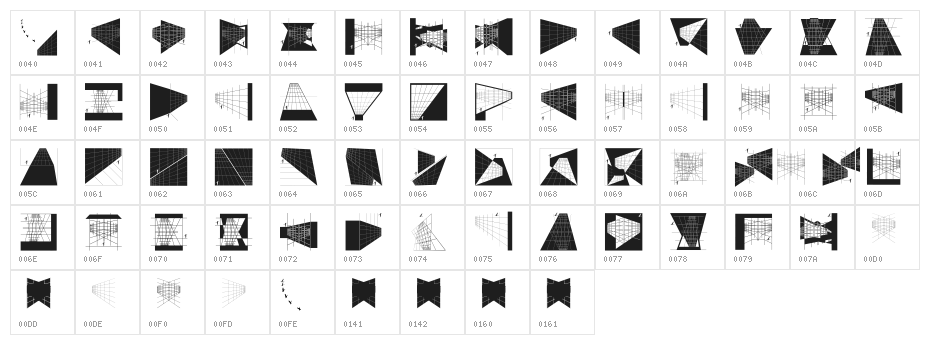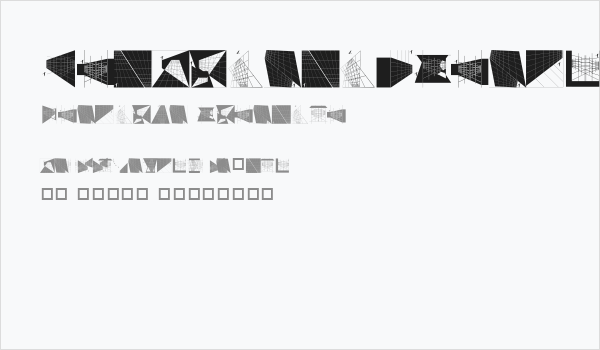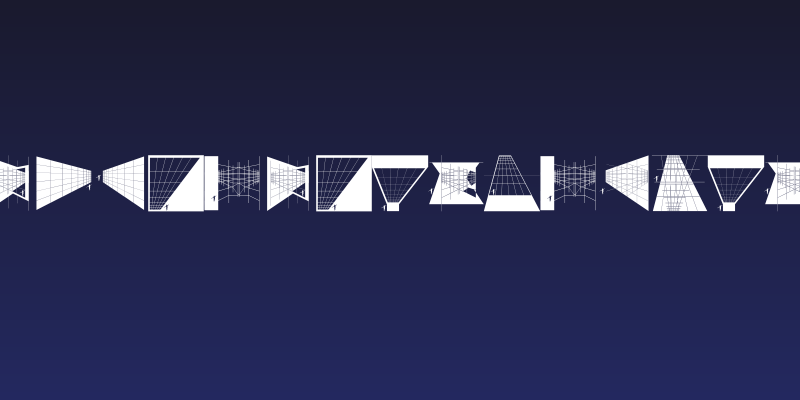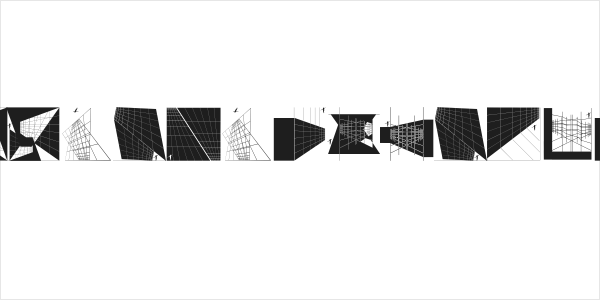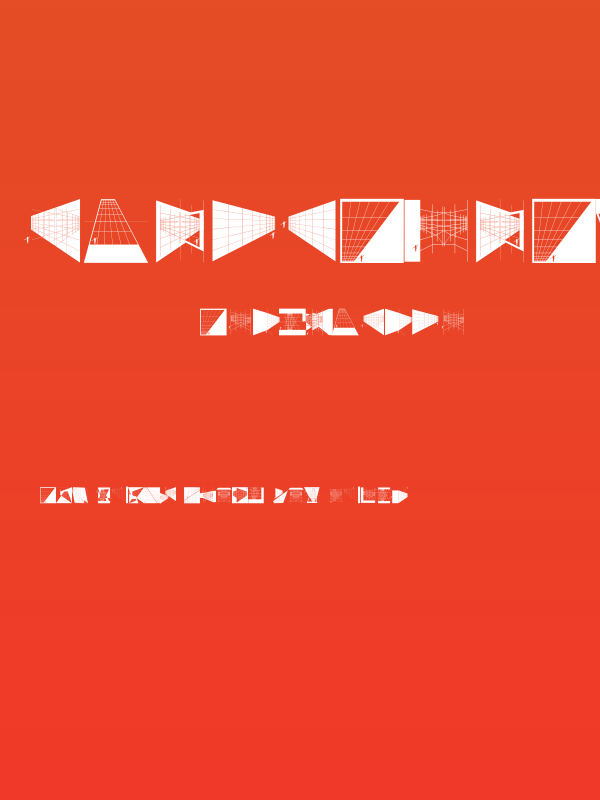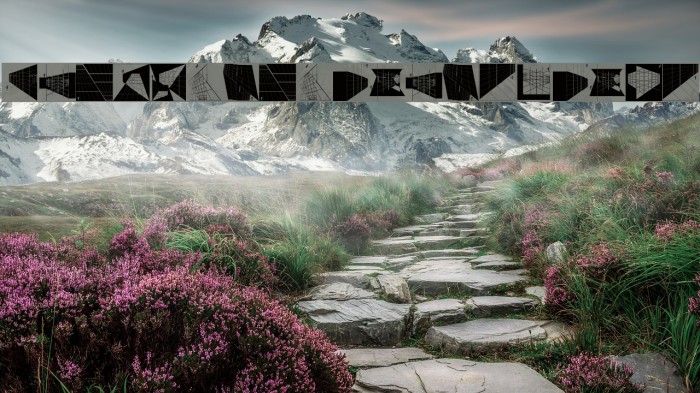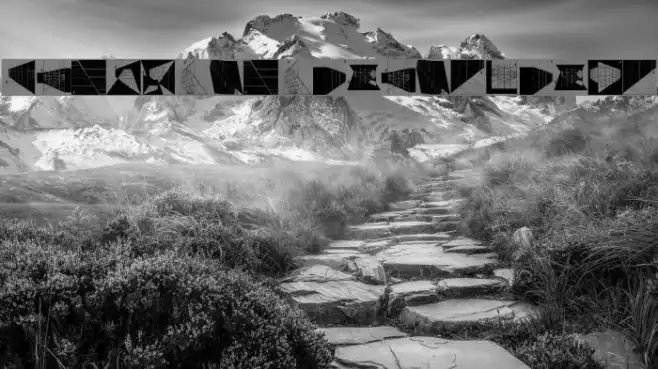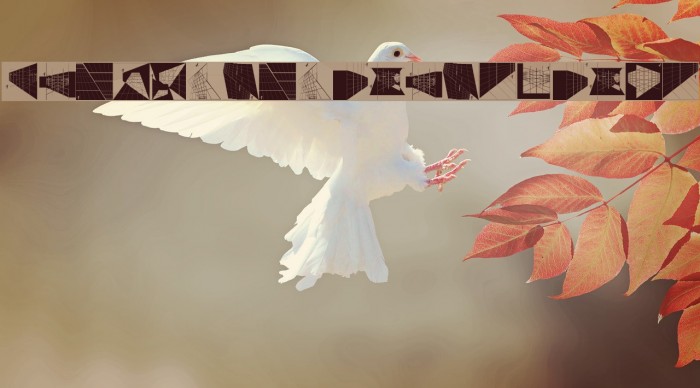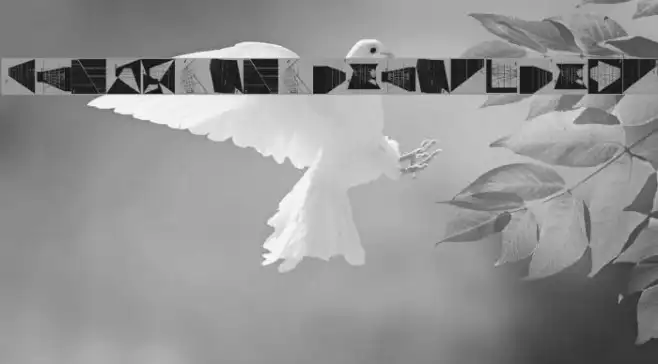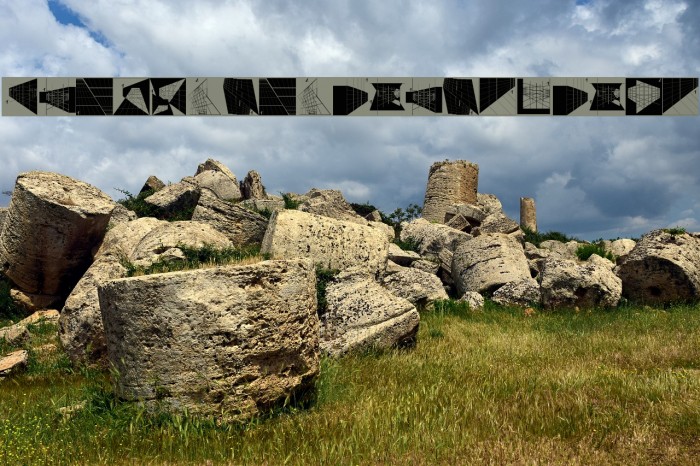
ArchitectsDreamsDwa Font
ArchitectsDreamsDwa Description
This font features an intricate and highly detailed architectural theme, with each character resembling a blueprint or technical drawing. The design incorporates geometric shapes, lines, and angles, creating a complex and visually striking appearance. The characters are filled with grid patterns and construction lines, giving them a three-dimensional and structural feel. This font is not only decorative but also artistic, making it suitable for projects that require a unique and sophisticated look. The overall aesthetic is reminiscent of architectural sketches, making it ideal for creative and design-focused applications.